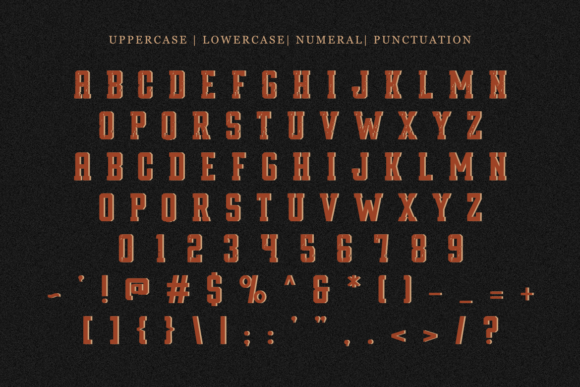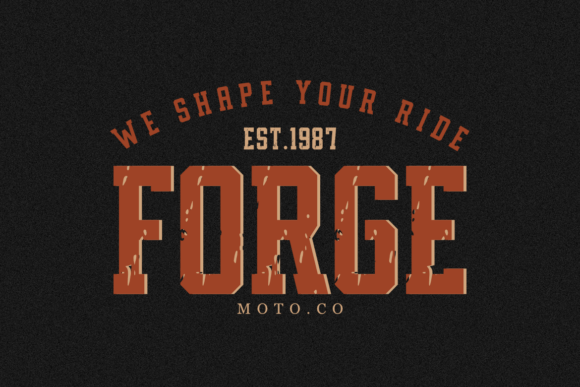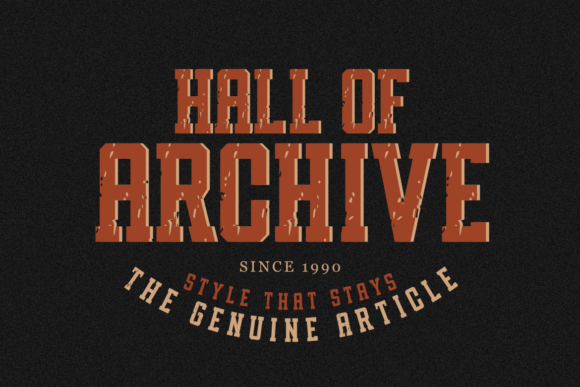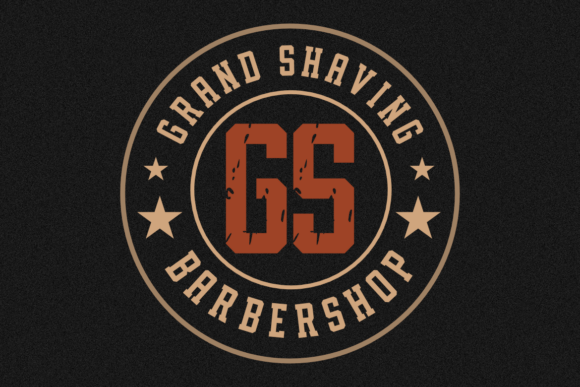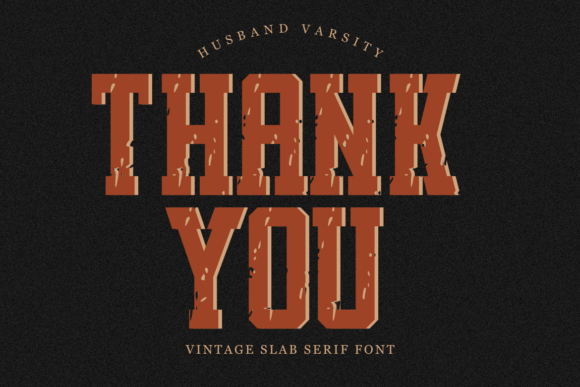
Introduction to Husband Varsity Font
Do you remember the thrill of browsing through your grandfather’s old trunk, unearthing forgotten treasures and relics that transport you back in time? That’s exactly the magic that Husband Varsity Font brings to your creative projects. This timeless slab serif font is a design resource that will make your heart skip a beat, as it seamlessly blends nostalgic charm with modern elegance.
As a designer, you’re always on the lookout for that perfect font that elevates your project from good to great. With Husband Varsity Font, you can add a vintage flair to your laser cuts, signs, clothing, print works, or even your favorite coffee mug. Its high-quality design and transparent background make it an ideal choice for any creative project, whether you’re working on a logo, t-shirt design, or inscribing an evocative quote.
Husband Varsity Font
- High-quality design resource ideal for creative projects, including logos, posters, and social media graphics.
- Features a bold and modern style with a transparent background, allowing for versatile use and easy customization.
- Includes multiple font styles and weights, including regular, bold, and italic, to suit different design needs.
- Designed with a clean and minimalist aesthetic, making it perfect for modern and trendy designs.
Honest Review: Husband Varsity Font
I recently stumbled upon the Husband Varsity Font, a design resource that caught my eye with its unique and bold style. As a designer, I appreciate high-quality fonts that can elevate a creative project, and this one definitely delivers.
One of the standout features of the Husband Varsity Font is its versatility. It can be used for a wide range of projects, from branding and logos to digital products and print materials. ✨ Its bold and modern design makes it perfect for making a statement, and its transparent background allows for seamless integration with any design.
- High-quality design: The font is well-designed and looks great on both digital and print materials.
However, I did notice a few limitations. ⚠️ The font is only available in a few weights, which may limit its use in certain projects. Additionally, the font may not be suitable for projects that require a more subtle or elegant design.
Husband Varsity Font
Tips for Getting the Most Out of Husband Varsity Font
Experiment with different font sizes and styles to create a unique look.
Pair the Husband Varsity Font with other high-quality design resources for a cohesive design.
The Husband Varsity Font is perfect for:
Headlines and titles
Branding and logos
Posters and flyers